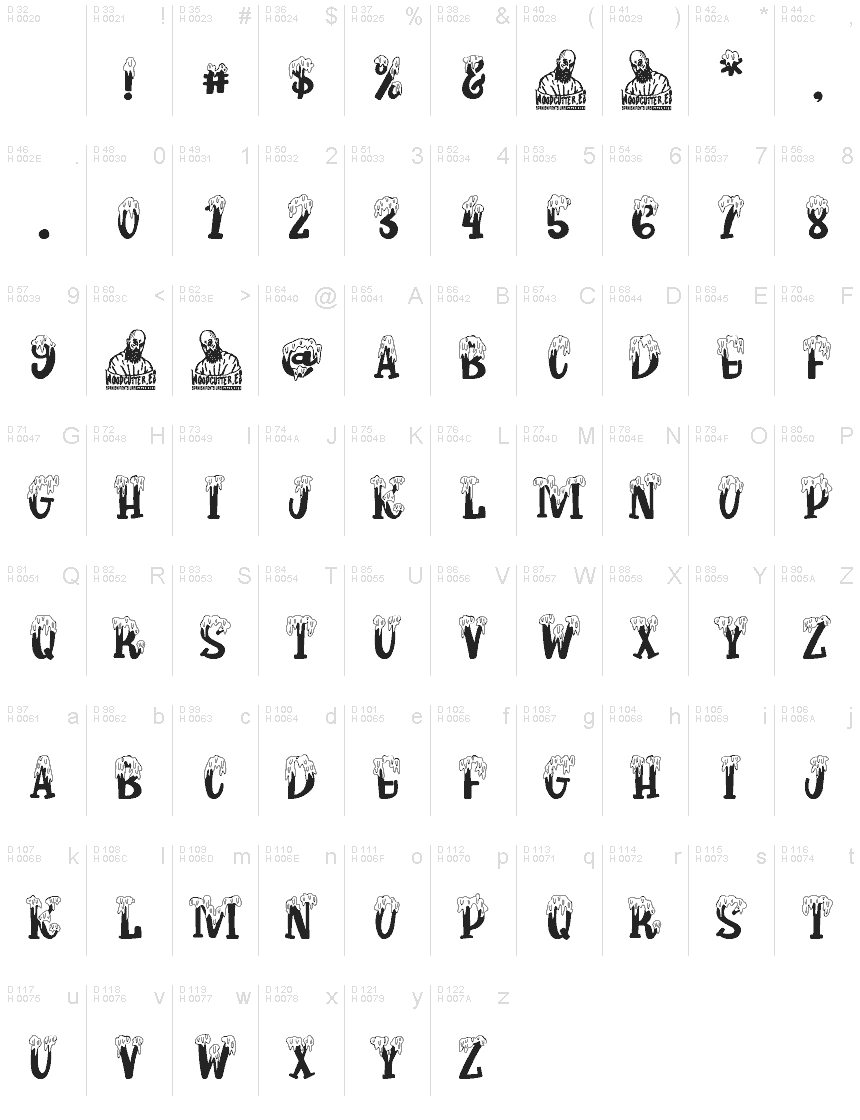
The Winter Child
The Winter Child font by Woodcutter is a display typeface with a decorative and whimsical wintry theme. It has icicle-inspired details which give it a strong winter vibe perfect for Christmas and New Year’s Eve projects. Condensed and bold, it shows up in style while maintaining good readability in any size.
Being free, The Winter Child font can be immediately used in card designs, invitations, themed posters, flyers, children-oriented publications, books, coloring books, or even on social media posts. Logos and printed magazines are another possible option keeping the work entirely seasonal.